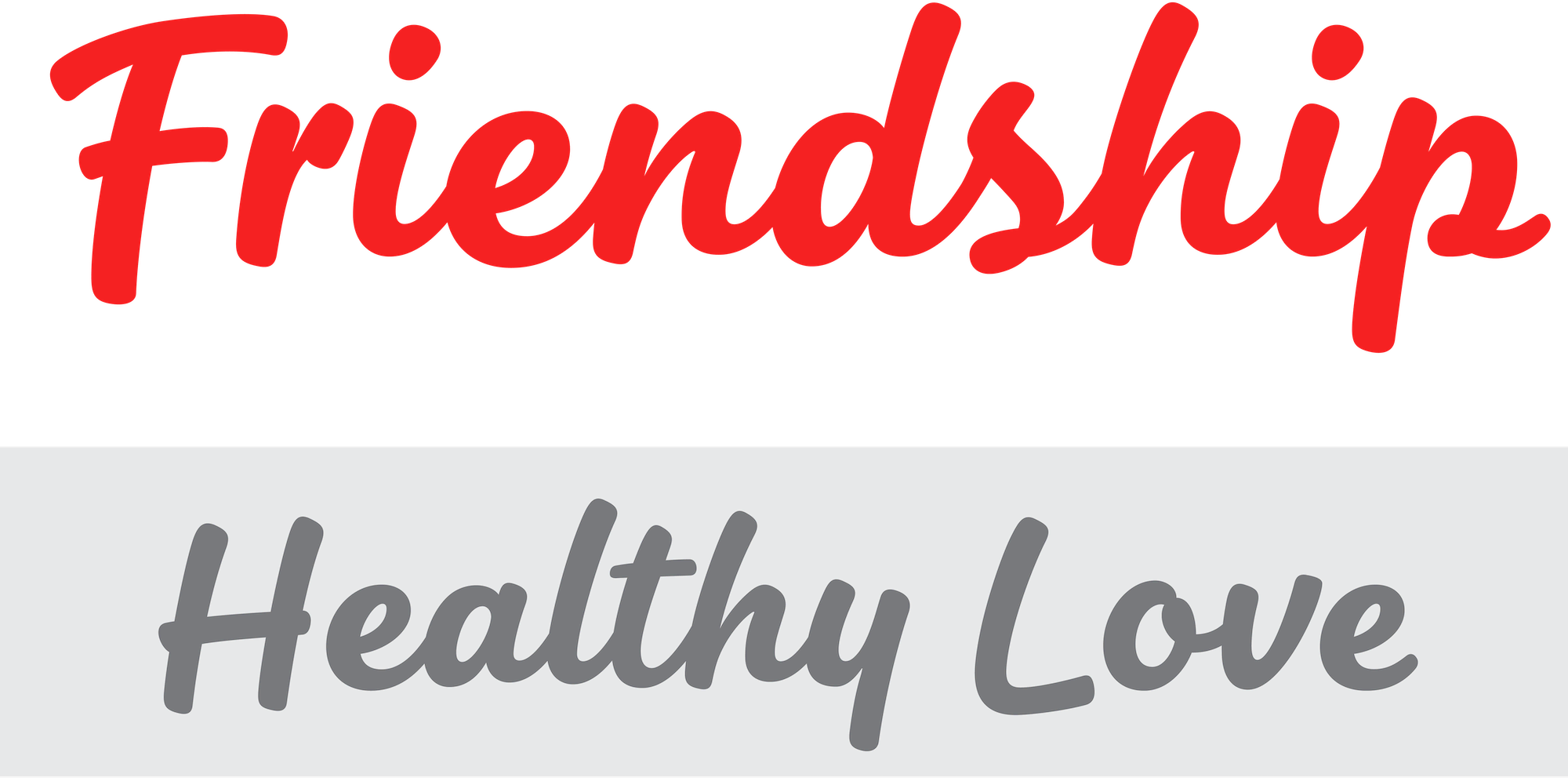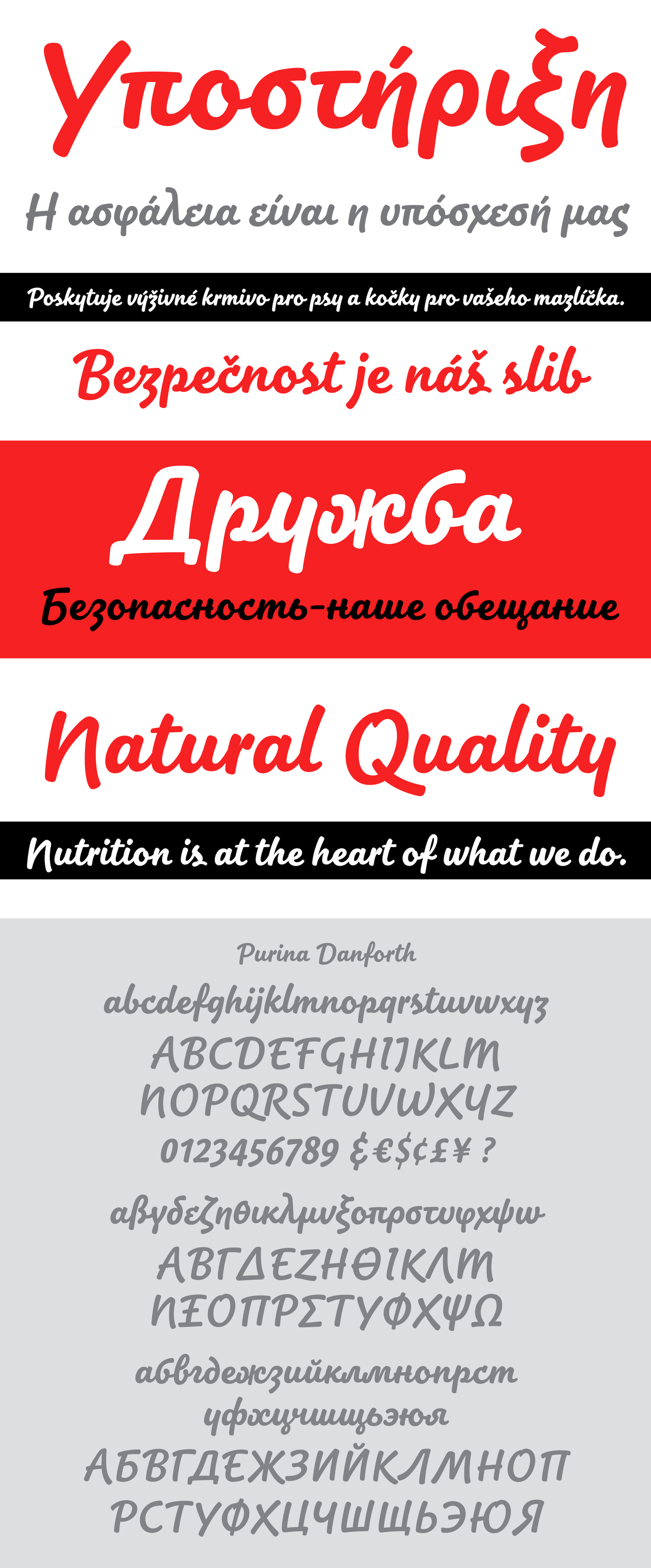
Purina Danforth, Purina
The Danforth script gives a humanistic accent to the visual communicative needs of the Purina brand. The font supports Latin, Cyrillic and Greek. Danforth's friendliness is heightened by it’s ‘hand-like’ nature through the support of alternative characters available in the open type features of the font.
Broad Latin, Cyrillic, Greek
OTF feature Contextual Alternates